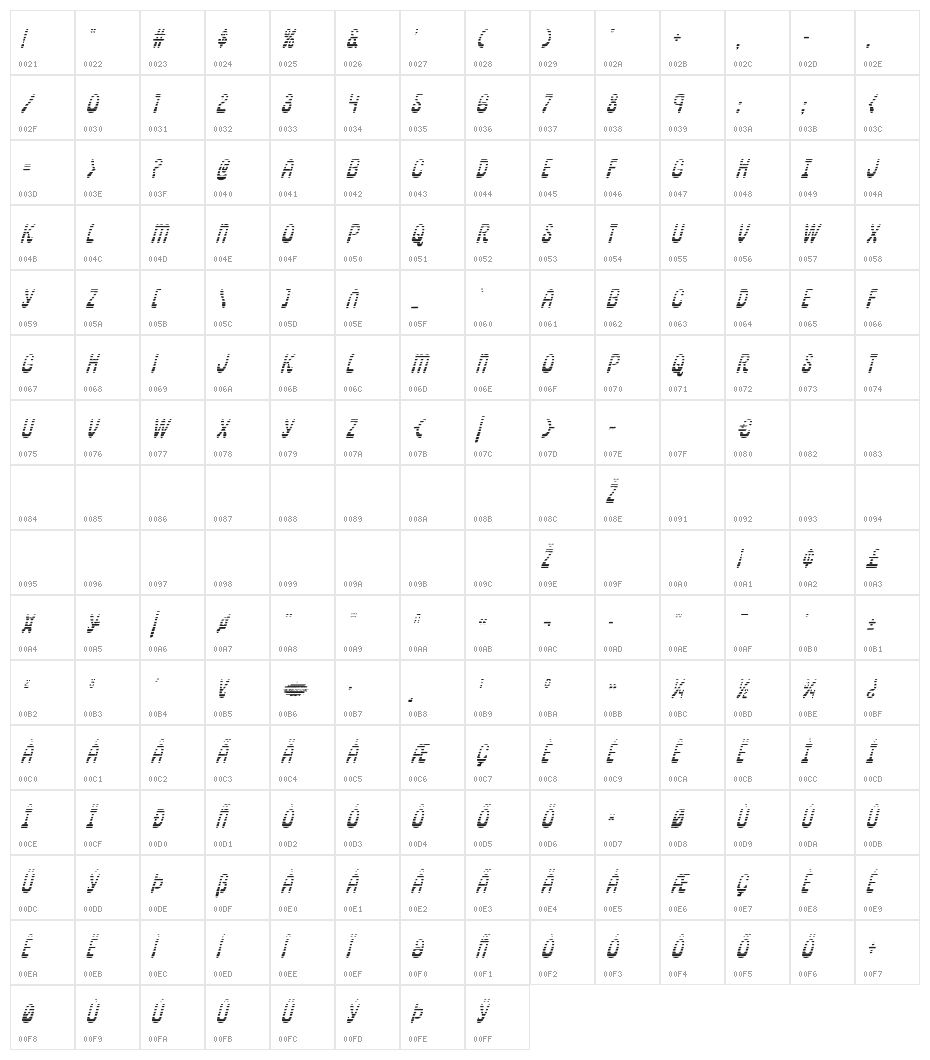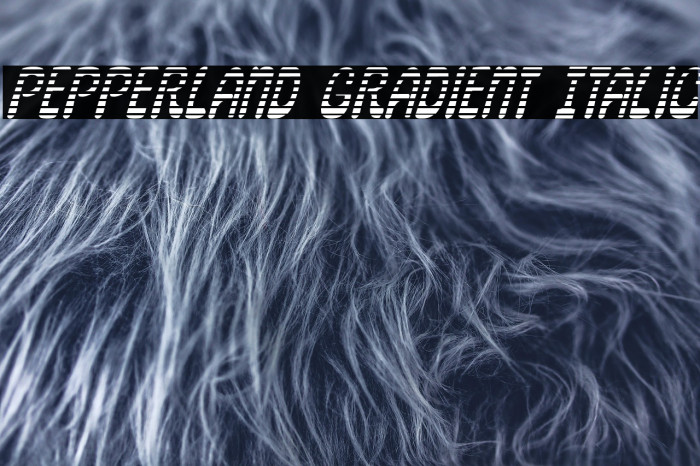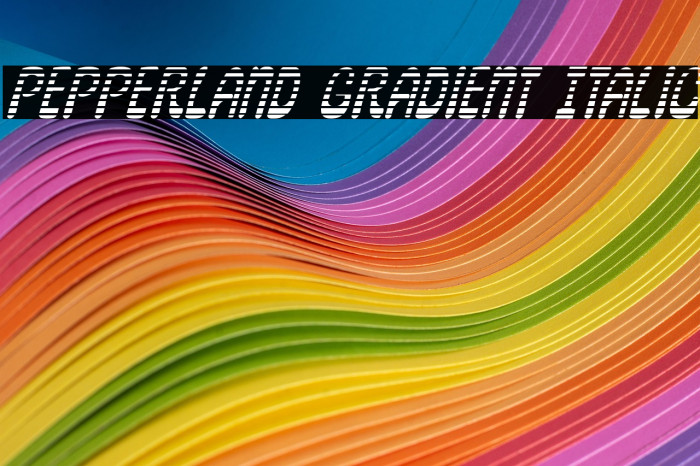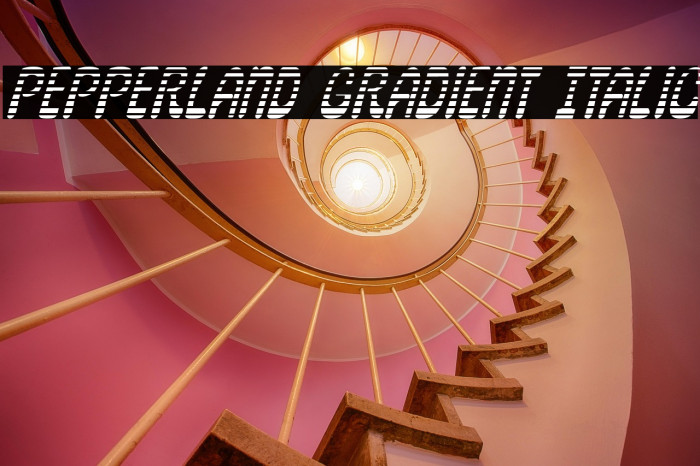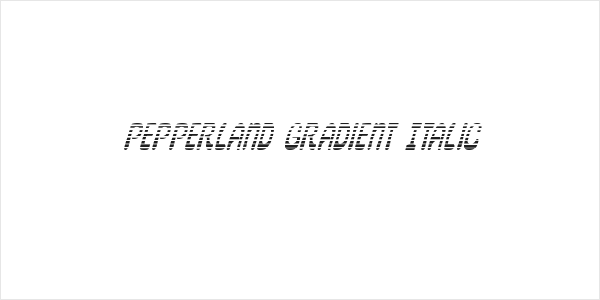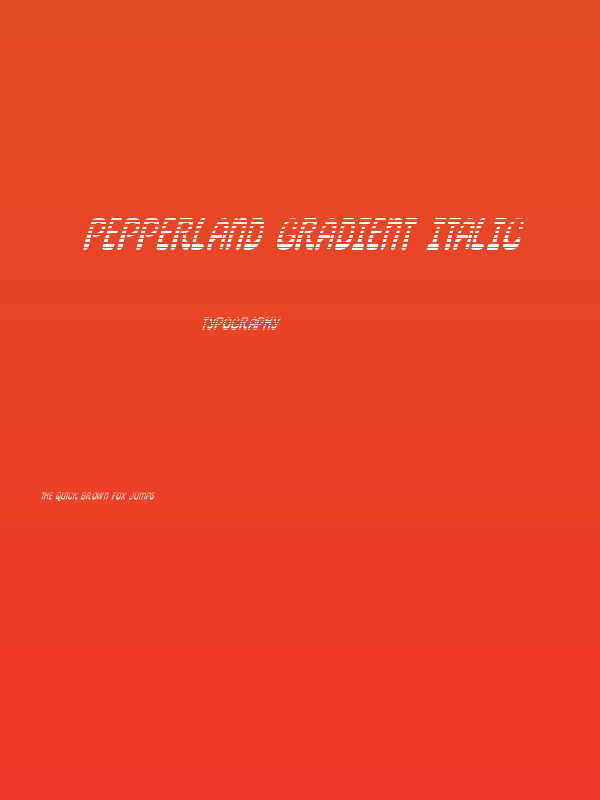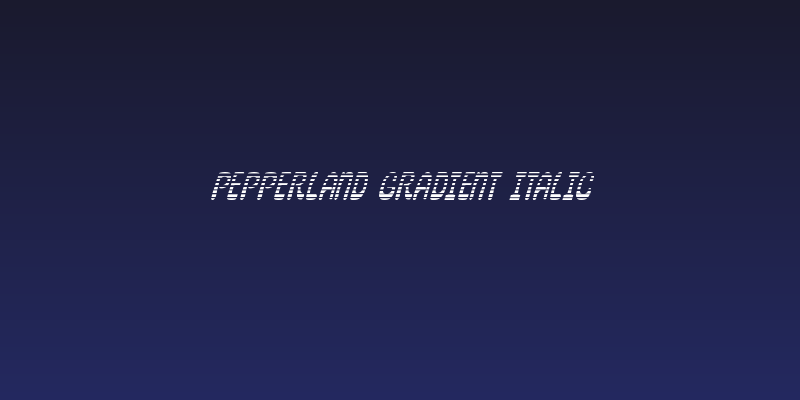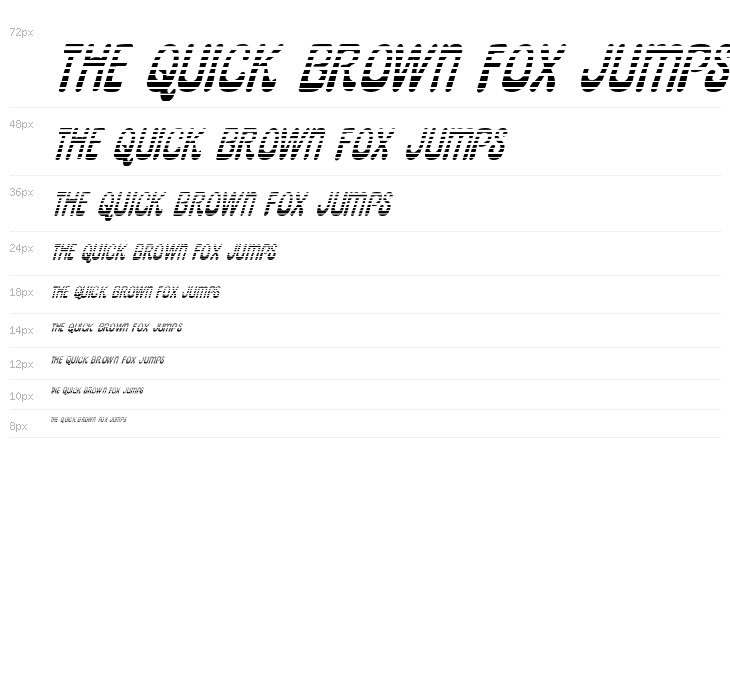
Pepperland Gradient Italic Font
Pepperland Gradient Italic Description
This font features a unique gradient effect with horizontal stripes running through each character, giving it a dynamic and modern appearance. The italicized style adds a sense of motion and fluidity, making it stand out in any design. The uppercase and lowercase letters maintain a consistent slant, enhancing the cohesive look. The numbers and special characters are designed with the same striped pattern, ensuring uniformity across all elements. This font's bold and decorative nature makes it ideal for eye-catching designs.
| Proposed Projects | Ideal for modern branding, poster designs, and digital media where a striking visual impact is desired. |